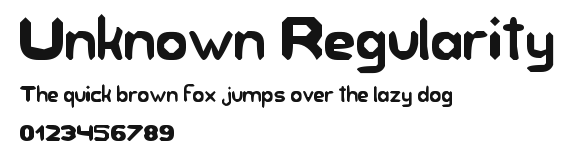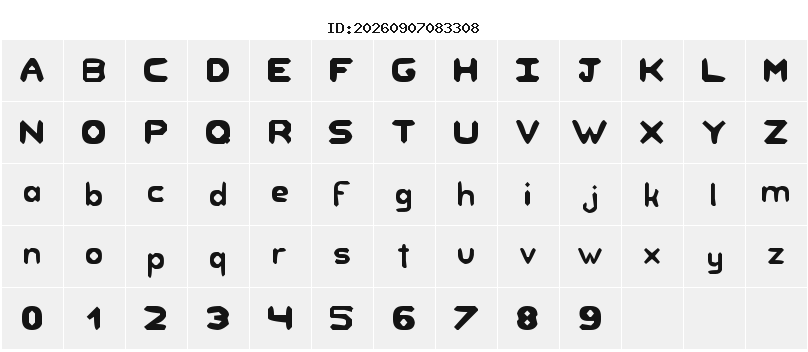
• Font Name: Unknown Regularity
• Full Font Name: Unknown Regularity
About Unknown Regularity.ttf
Unknown Regularity.ttf is a modern, elegant sans-serif font designed for ultimate readability and visual harmony. Perfect for branding, headlines, web design, and print materials.